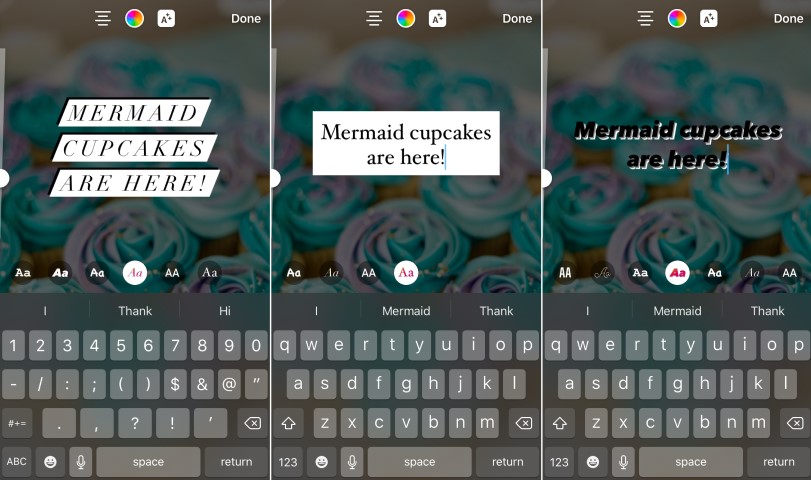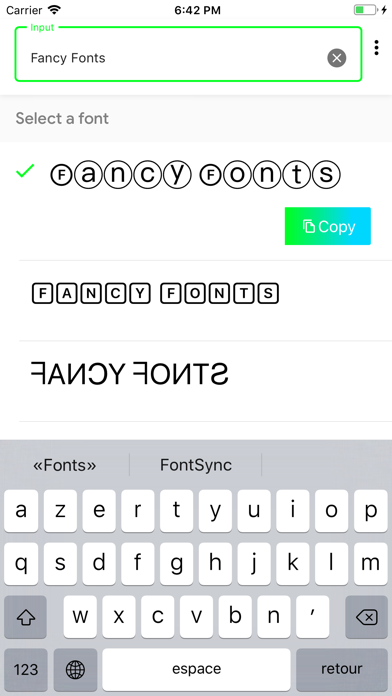
Learn how to use custom fonts where Instagram supports them, and even where it doesn't.
Instagram is fairly limited when it comes to fonts. For instance, there is no official setting that lets you change your Instagram's bio font or even the fonts of your comments. But that doesn't mean that you can't change fonts at all.
In this article, we'll show you different ways to change fonts in your Instagram Stories, bio, comments, and even captions.
One of the easiest things to customize on Instagram is the fonts in your text-based Stories. What makes this easy is that Instagram allows you to choose between a range of fonts by default. There's a total of nine fonts at the time of writing. Here's how to change the font of your text-based Instagram Story:
As mentioned above, you only get access to nine fonts by default. Thanks to enterprising people on the internet, though, you can use fonts that Instagram doesn't support officially. You can do this using Instagram font generator sites. Good examples include Cool Fonts, IGFonts.io, and FontsForInstagram.com.
Using such sites is easy. You just need to copy text from them, and it will retain its font style when you paste it into Instagram.
This method gives you access to over 100 fonts, which dwarfs the nine Instagram offers by default.
Read on for step-by-step instructions on using font generator sites to change the fonts of your Instagram text.
There are many font generator sites, but they all work on a basic principle. You enter the text and copy it to wherever you want. We'll use CoolFont in this tutorial.
This will copy your text with the new font to your clipboard. 3 Images
Using this method, you'll be able to change your Instagram bio font, and fonts in comments, Stories, and even captions. While you can pick any font from one of these sites, keep in mind that all fonts are not equal.
Some are great and some will just make your text look funky and hard to read. If you don't like what's available, a site like IGFonts.io lets you create your own.
Instagram is a great social media platform, but, like other platforms, it does have its cons here and there. One of the cons is the limited access to more fonts natively. Thankfully, even without native support, you can change Instagram fonts for any text you enter on the platform.
Font generator sites like Cool Fonts and IGFonts.io allow you to change fonts in Stories, comments, your bio, or any other text.
Now you can type everything ~*LiKe ThIs*~.
If you, like me, have shamelessly spent too much time making your Instagram Story just right, I’ve got good, textual news for you. Instagram just released new fonts for Instagram Stories. Time to awaken your inner middle school who typed everything ~*LiKe ThIs*~.
On April 29, 2020, Instagram announced the forthcoming fonts in a tweet. Instagram first tested out the new fonts with a “small percentage of people” and is now making them available to all users.
As of today, in addition to the original styles (that aren't going anywhere), there are four new text styles for Instagram Stories.
If you want to access the new fonts, you’ll be able to do so pretty easily:
This YouTube tutorial from HiTech Talk gives an easy primer on how to use the new Instagram Story fonts, including how to change color and size. But if you're already familiar with editing text in Instagram Stories, you'll be able to edit and adapt the new fonts with no problem. The new options include a stencil-like text, a new serif font, and something that looks eerily like Comic Sans.
(It’s like if Comic Sans dyed its hair but the roots started showing — something’s different but it’s still familiar.) Instagram has yet to release the official names of the new fonts. So, for now, we will call the font Comic Sans Lite.
If you want to give yourself even more options on top of Instagram's new fonts, you can use igfonts.io to create text in different fonts to copy and paste into your Instagram story. That’s how people have 𝖙𝖊𝖝𝖙 𝖑𝖎𝖐𝖊 𝖙𝖍𝖎𝖘 and 𝕥𝕖𝕩𝕥 𝕝𝕚𝕜𝕖 𝕥𝕙𝕚𝕤 and ᵗᵉˣᵗ ˡⁱᵏᵉ ᵗʰⁱˢ and even sıɥʇ ǝʞıl ʇxǝʇ. Is it obnoxious? Sure, but really what about Instagram Stories isn’t just a little bit obnoxious.
While you’re checking out the update, there are plenty of other Instagram Story hacks to try out if you’re looking to level up your Stories. You can make Instagram Story photo collages. You can change the background color of your Instagram Story. You can even post your Story to your main Instagram feed if you make something that’s grid-worthy. Here's hoping the new fonts roll out to everyone soon so we can Insta-story our respective lockdown accordingly.
Instagram's strong point is visual, so all elements are important in the design of a publication: from the background of the cover to the lettering.
If you really urgently need this function, you can try to write to Instagram technical support. This is very easy to do:
Here's what the new fonts look like on Instagram Stories:
Also examples with background and stroke (click on the A with asterisks to make it appear):